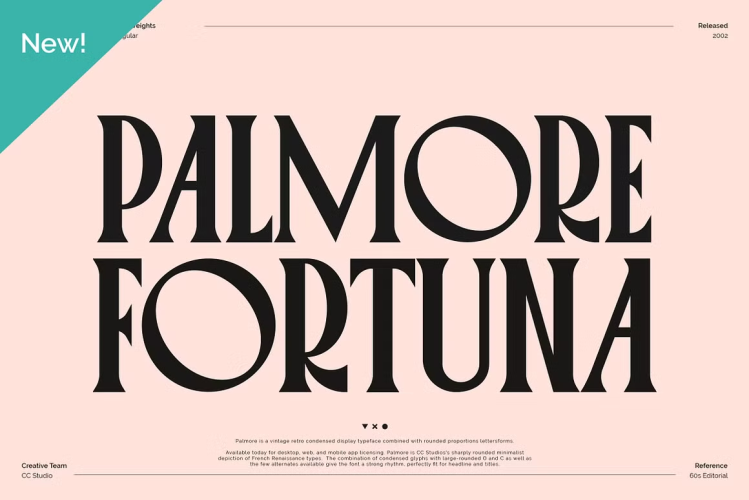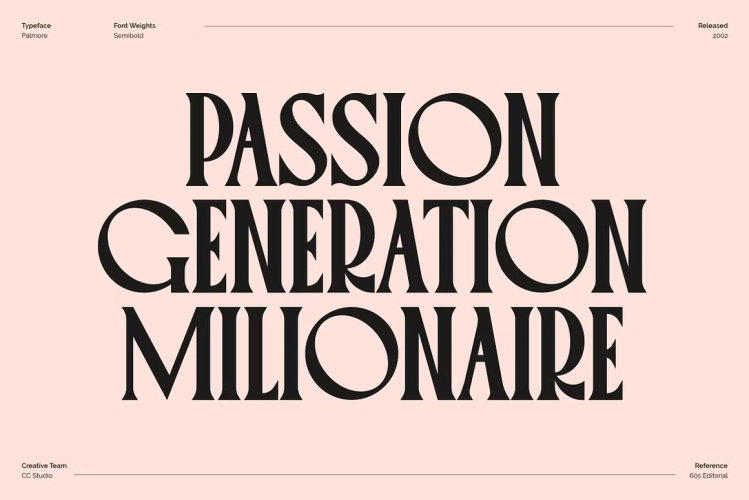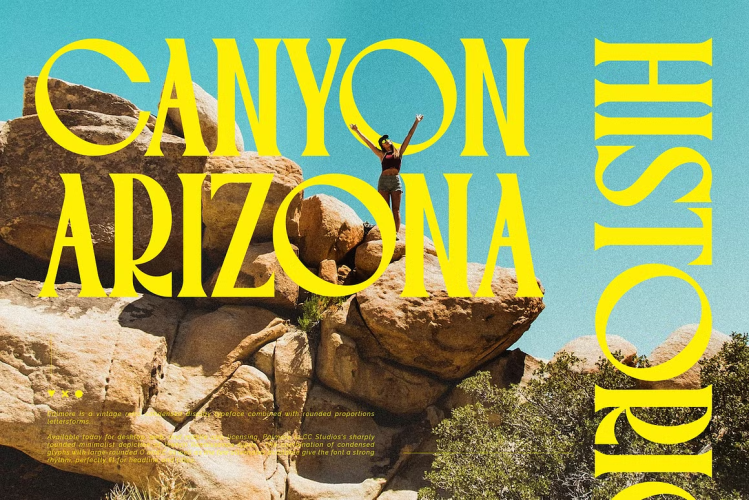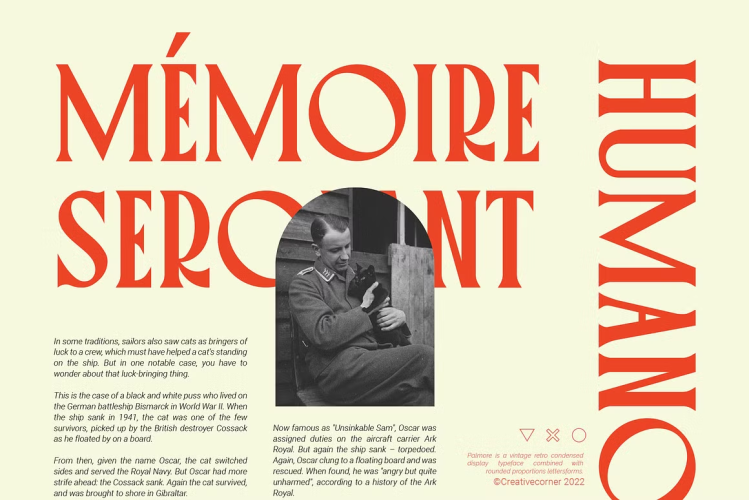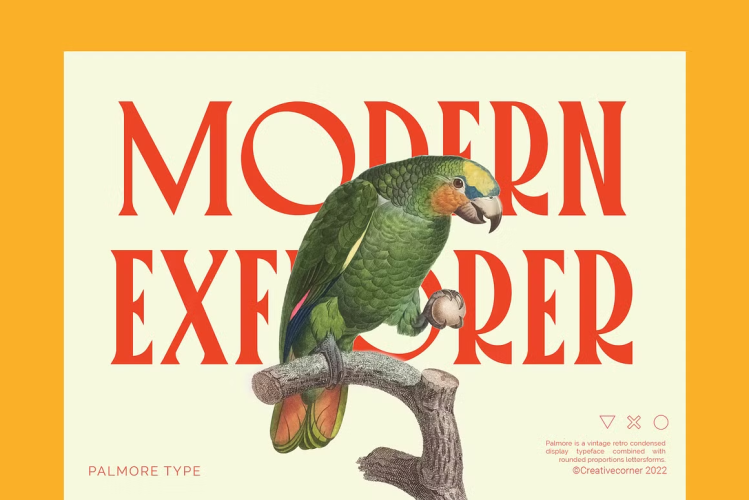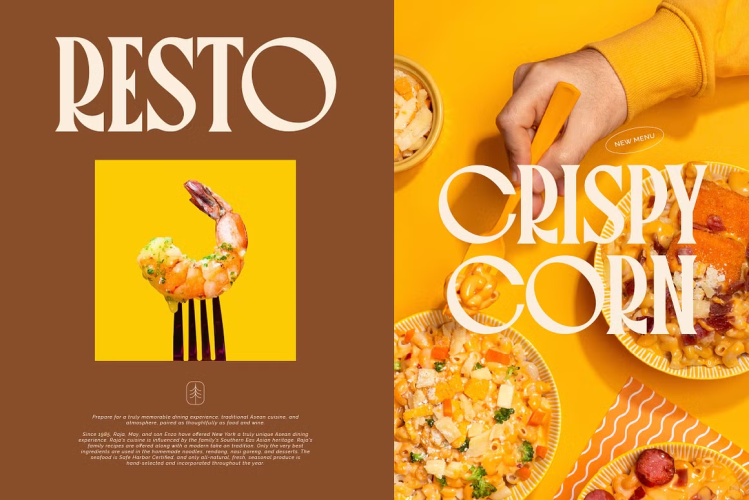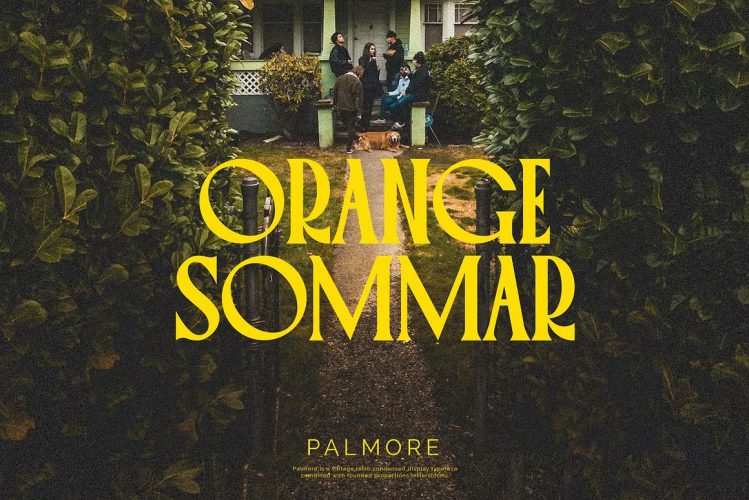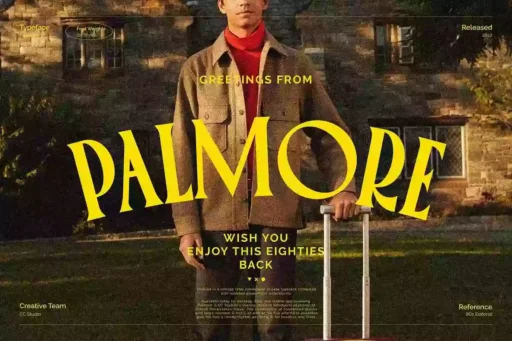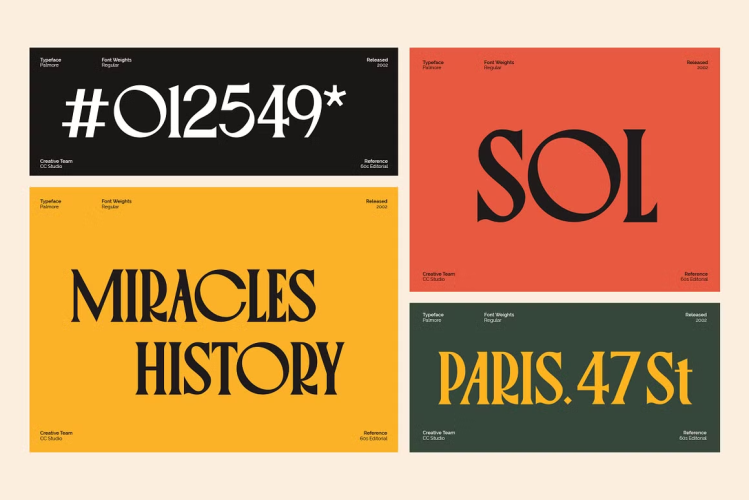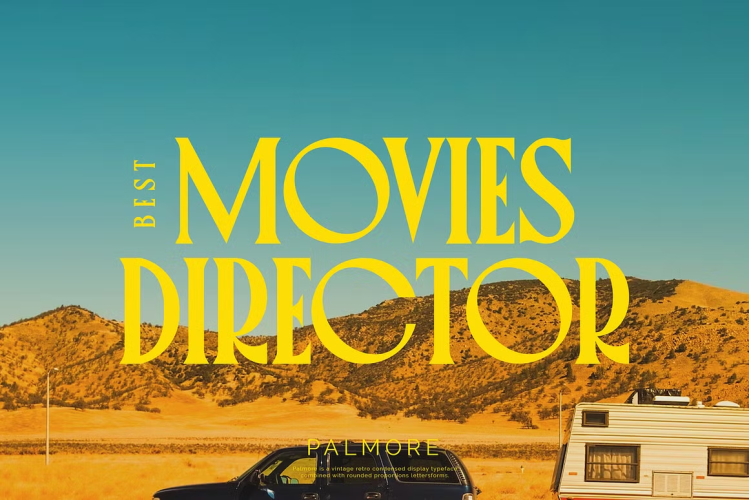
Palmore Font
Palmore is a font that is a throwback to the golden age of typography. It has the allure and grace of vintage design. The condensed presentation style, along with round letterforms, makes it a unique and distinctive typeface.
The robust condensed glyphs of Palmore are the essence of this font, giving it a compact and sturdy look. The large, rounded ‘O’ and ‘C’ letters soften the design that is very strong in any other aspect, thus, create a pleasing contrast, which can catch attention.
Palmore also has several alternate characters which strengthen the rhythm of this font. This rhythmic quality also makes Palmore a good candidate for headlines or titles, where it can dominate and make a strong assertion.
Palmore is a goldmine for lovers of classic and vintage letter designs. The retro aesthetic of the product sets a mood of nostalgia and its modern sensibilities allow it to be functional and fit into contemporary design contexts.
Palmore is characterized by its large glyph set. Palmore comes with more than 300 glyphs which includes alternative and multilingual characters providing lots of creative choices. Designers may play with different character combinations to make exclusive and individualized designs.
It is a trip down the memory lane, a tribute to the typography as an art, and an aide to crafting exquisite and unforgettable creations. If you are a professional designer or even an amateur type lover, Palmore welcomes you to discover its unusual features and, due to them, develop your own creative abilities.
Palmore Font is a Display Fonts font that brings a professional and versatile look to your projects. Palmore is a font that is a throwback to the golden age of typography.